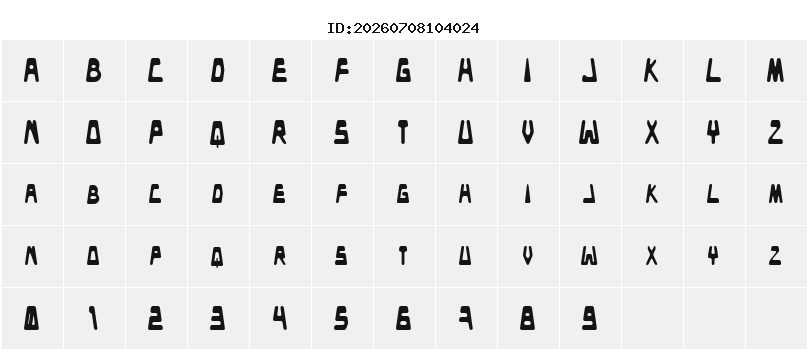
• Font Name: Danceclub
• Full Font Name: Danceclub
About Danceclub.ttf
Danceclub.ttf is a modern, elegant sans-serif font designed for ultimate readability and visual harmony. Perfect for branding, headlines, web design, and print materials.